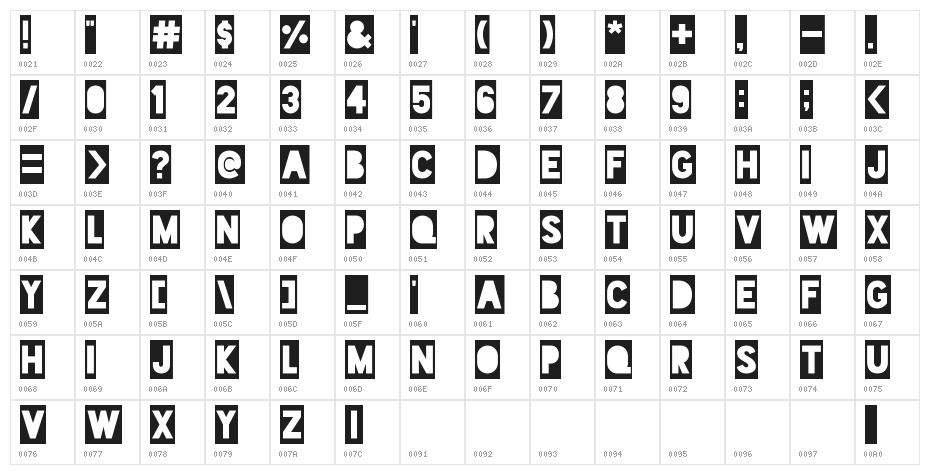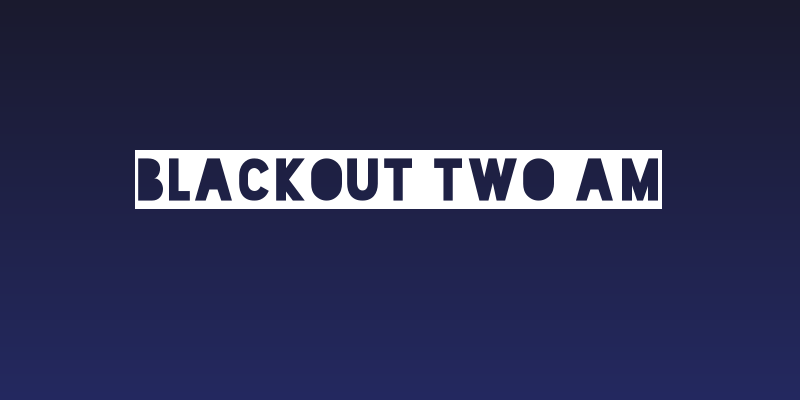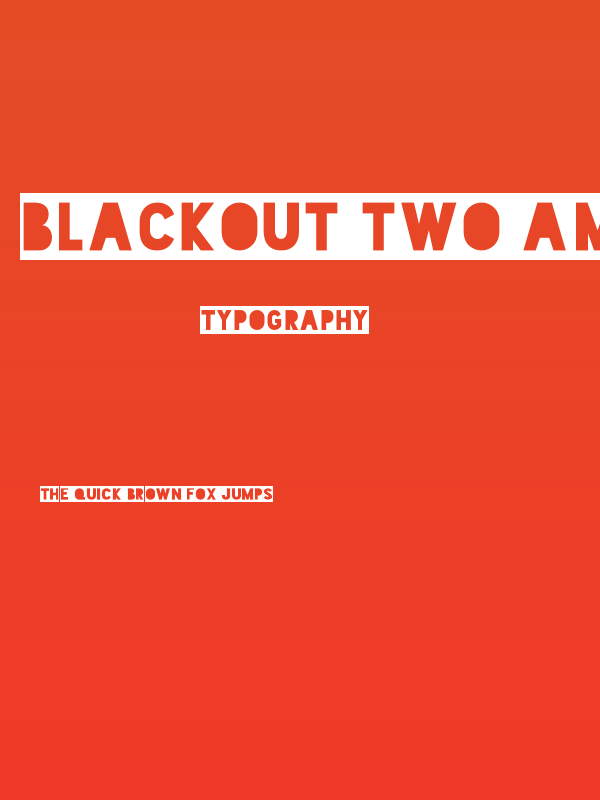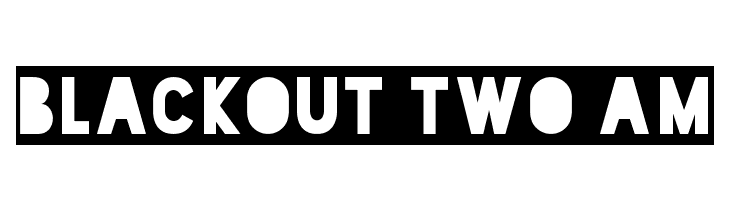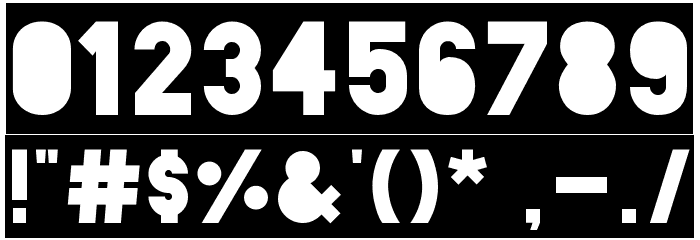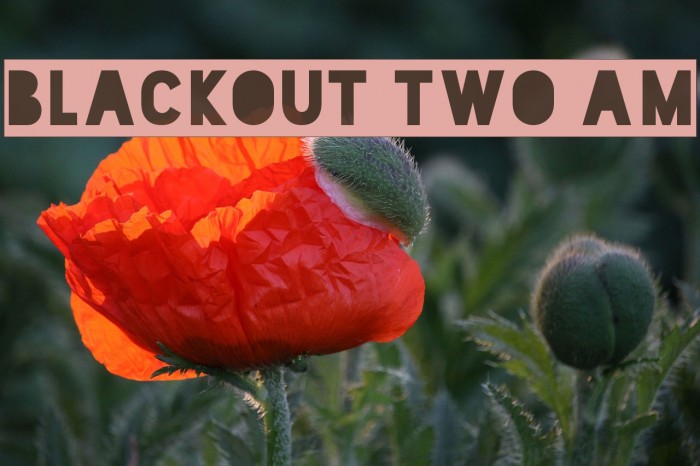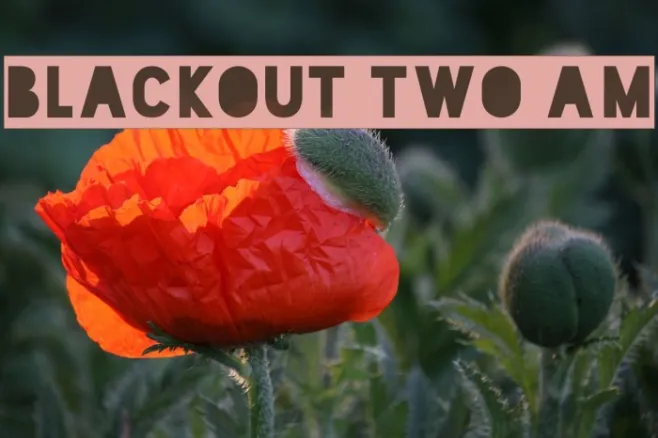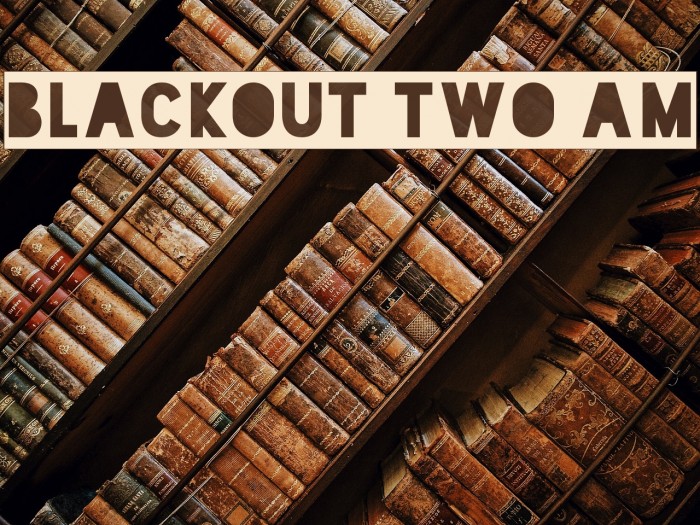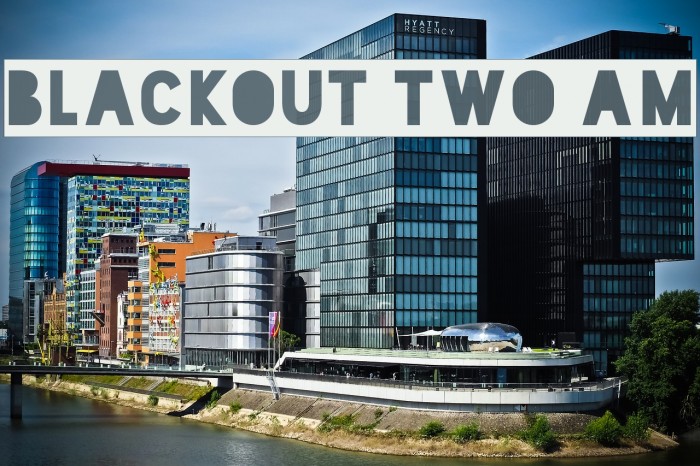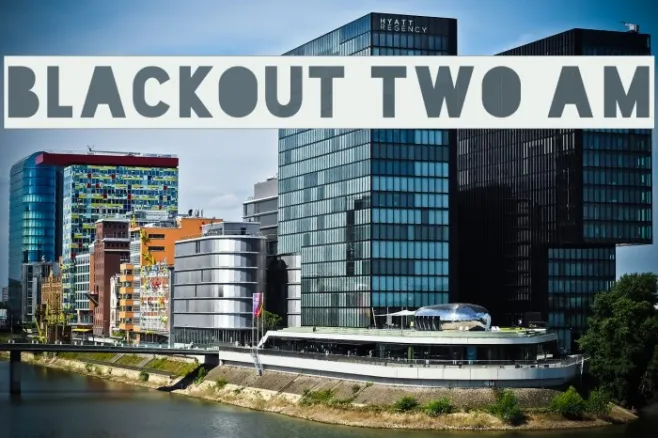
Blackout Two AM Font
Blackout Two AM Description
This font features bold, geometric letterforms with a strong, impactful presence. Each character is designed with a uniform stroke width, creating a cohesive and modern look. The uppercase letters are particularly striking, with a blocky and robust appearance that commands attention. The numbers and special characters maintain this bold style, ensuring consistency across all text elements. The font's design is clean and straightforward, making it suitable for a variety of applications where clarity and emphasis are desired.
| Proposed Projects | Ideal for posters, headlines, branding, and any project requiring a bold statement. |